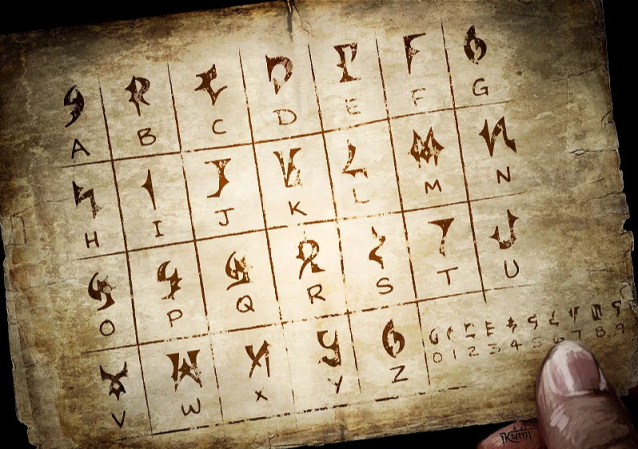
This is my first time doing this. I made this with the designs from LCL-Simon over on Deviant Art. This is to emulate the Demonic alphabet from the game series Bayonetta to allow others to use it for their own entertainment.
Demonic Alphabet (Bayonetta) Font
| Designer Name: | ImaginaryDream |